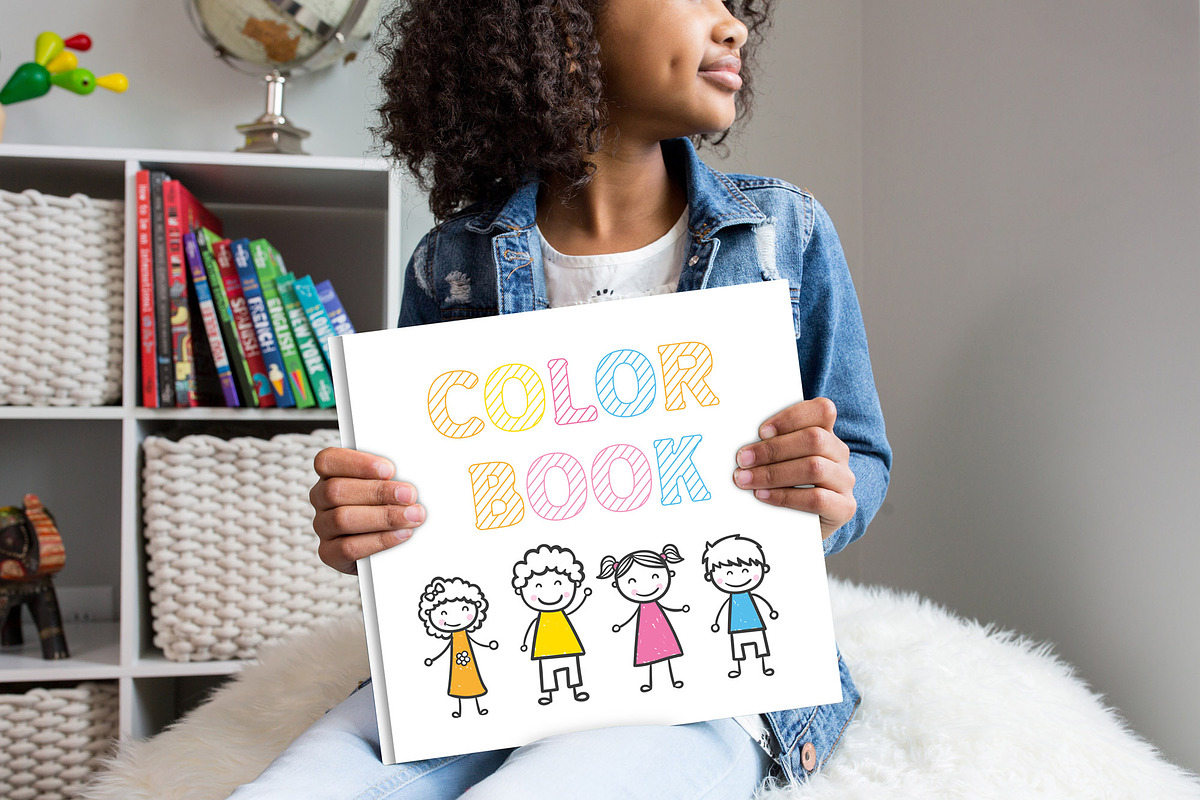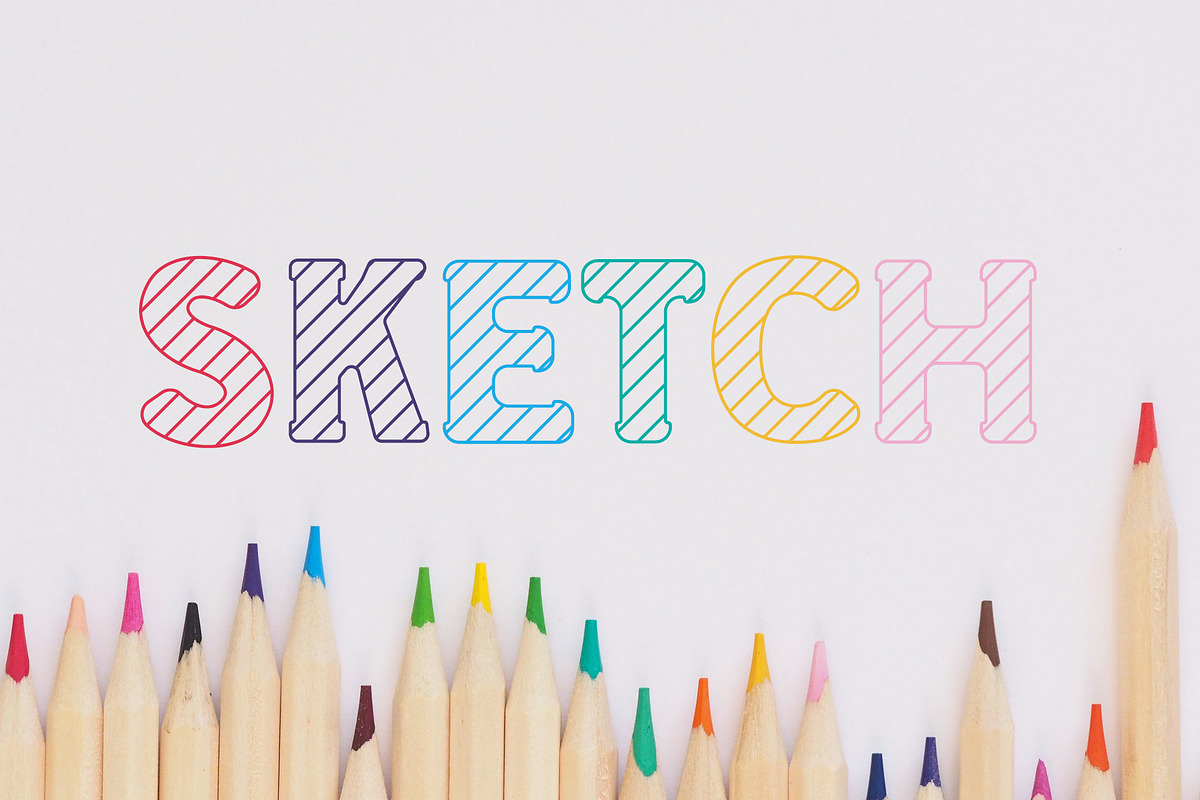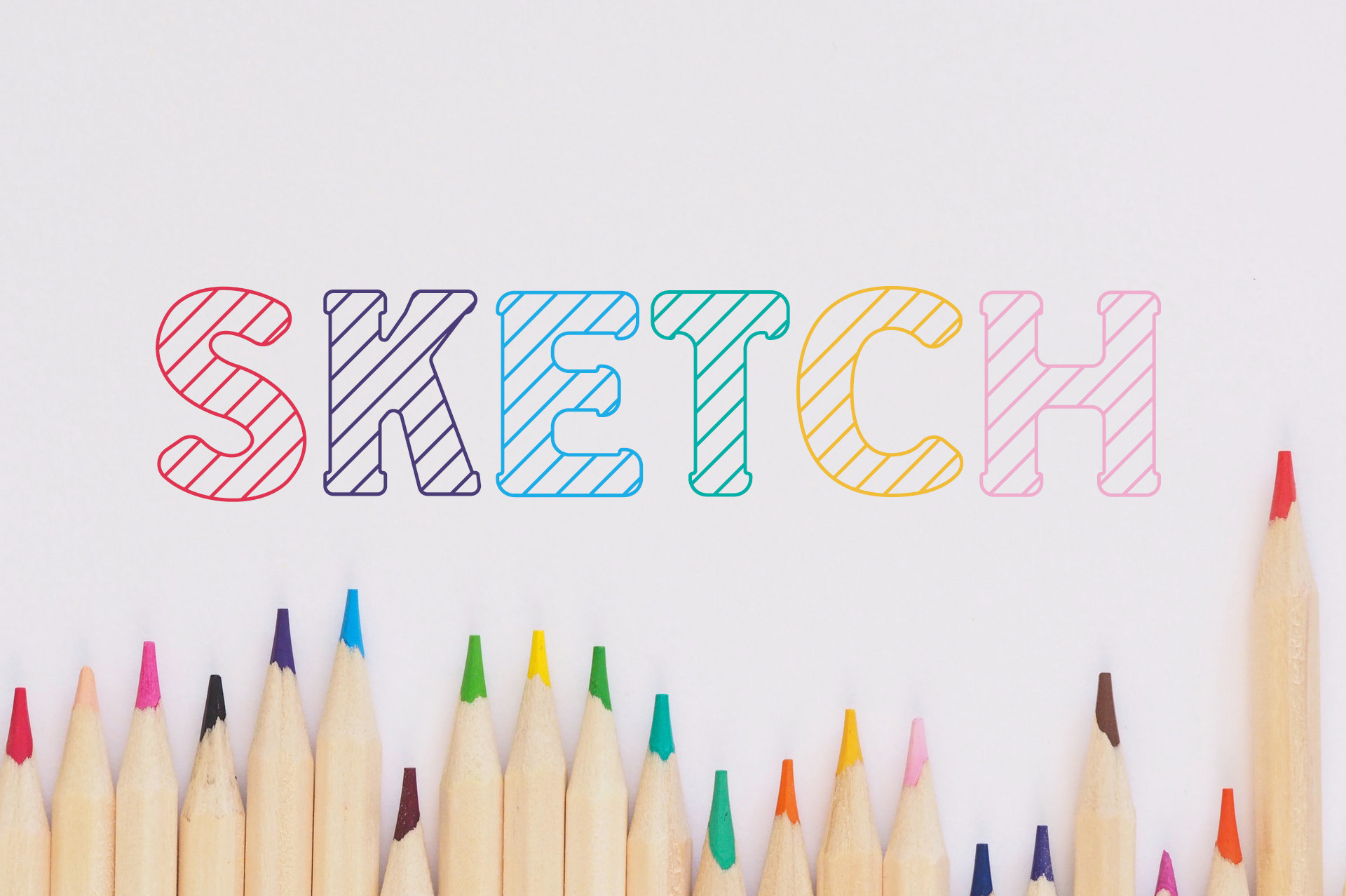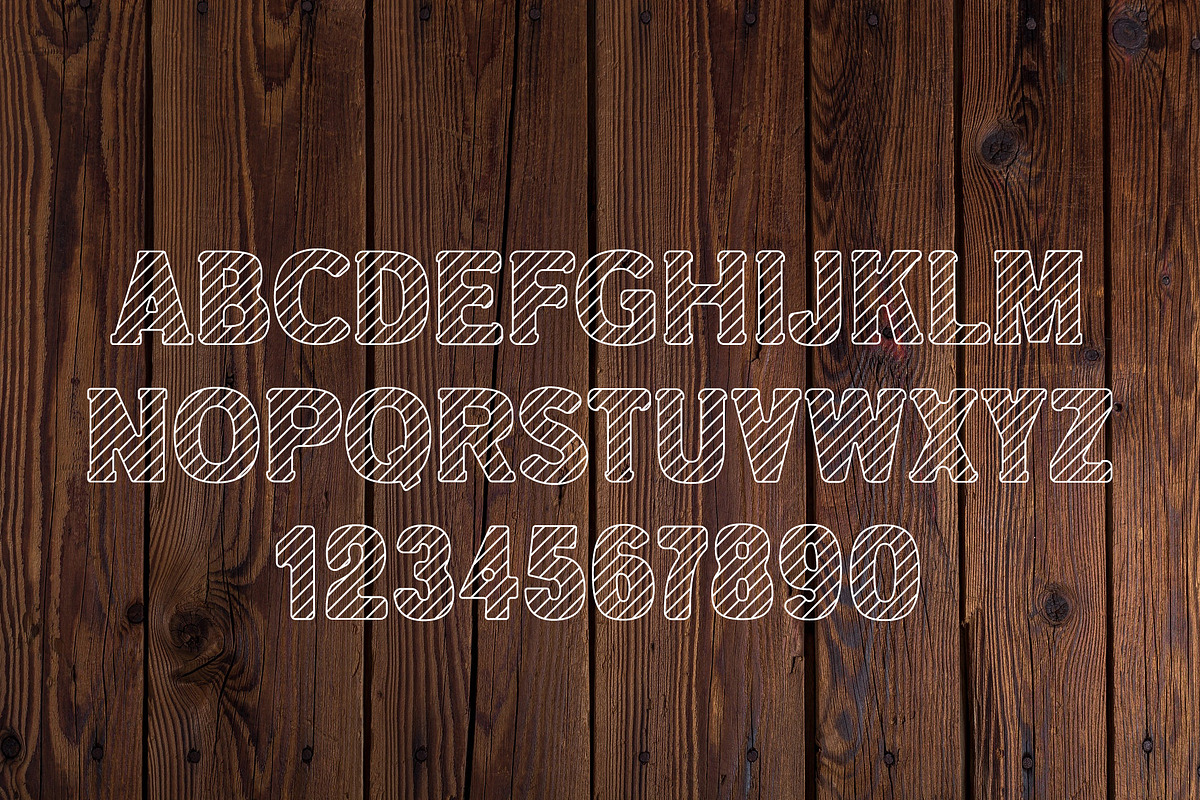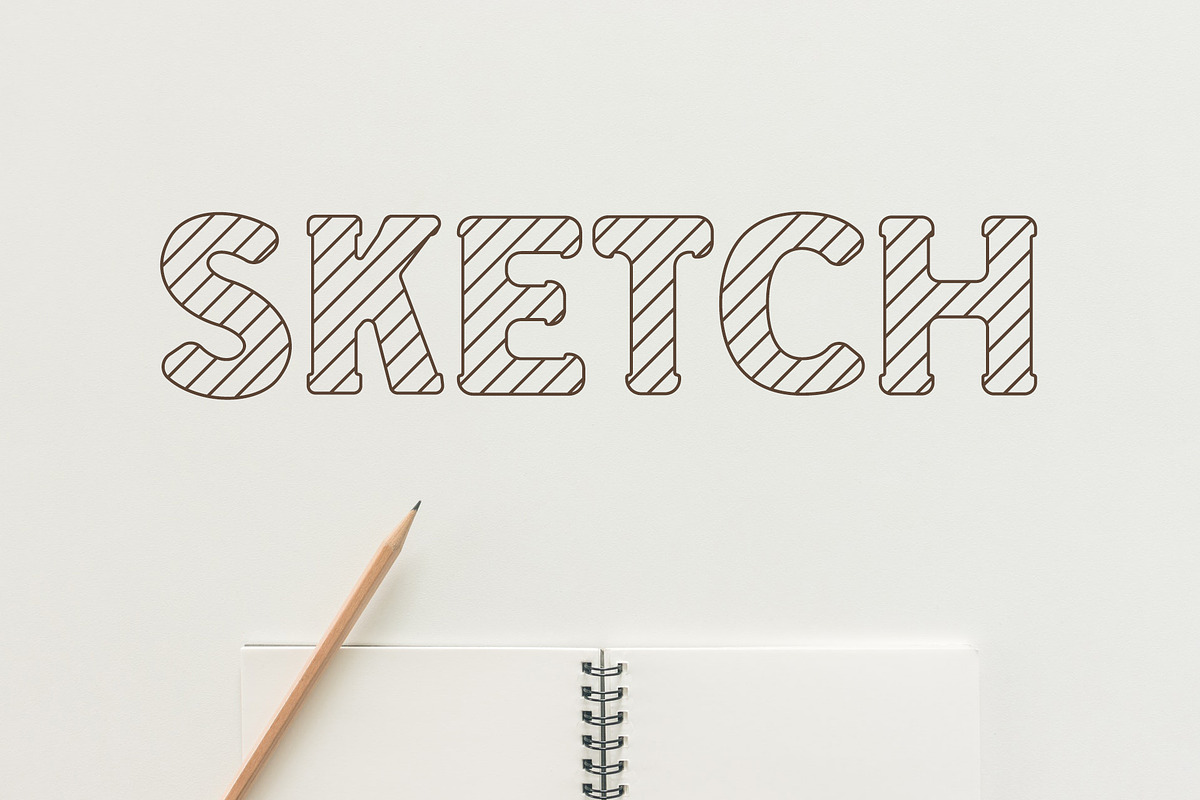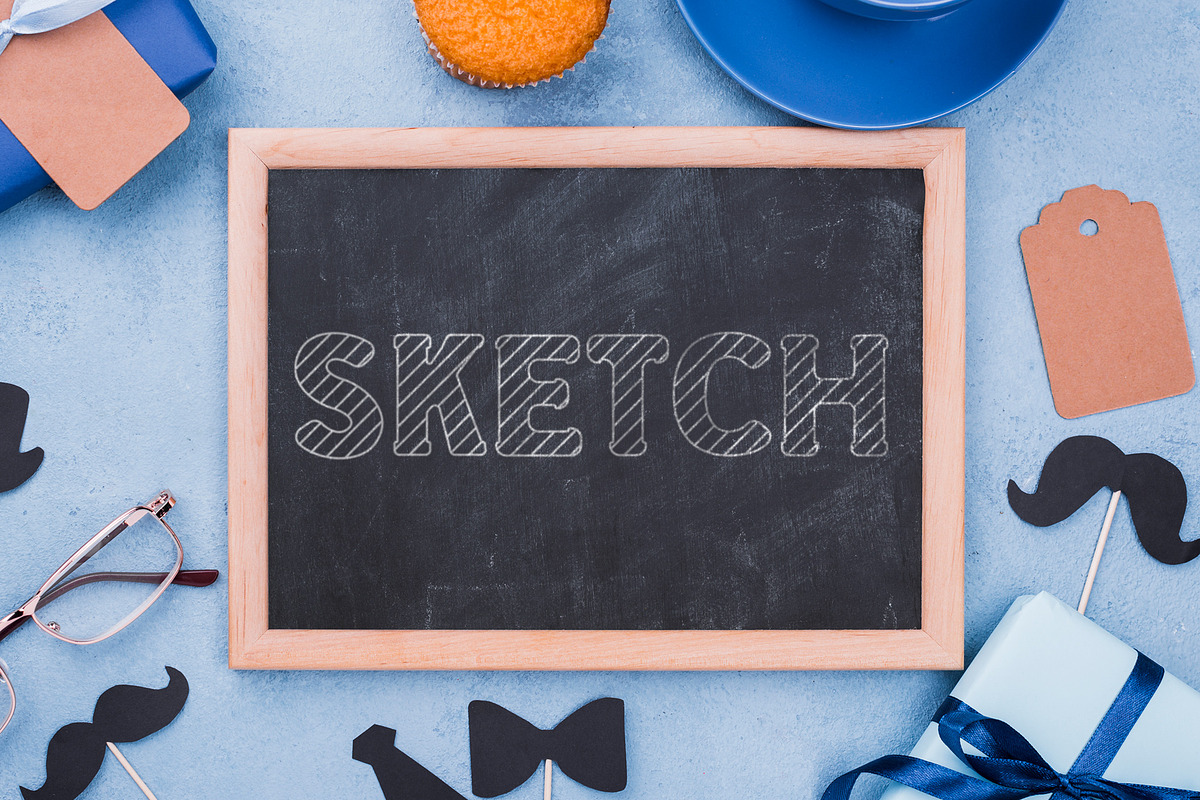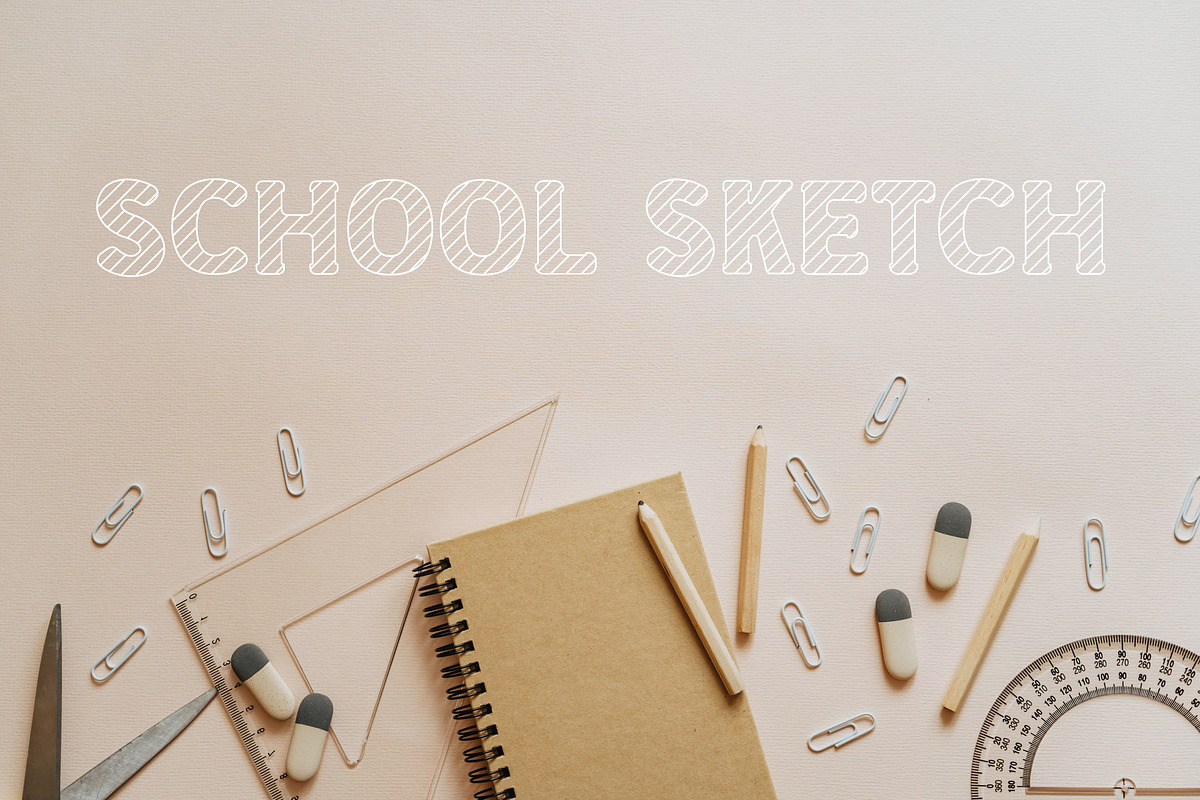
School Sketch Kids Font
School Sketch is a playful cartoon font for kids.
Cute and adorable font with smooth sketched curves.
School Sketch is a playful, cartoon like font. It is perfect for children books, greeting cards, toys, posters, baby clothing and more.